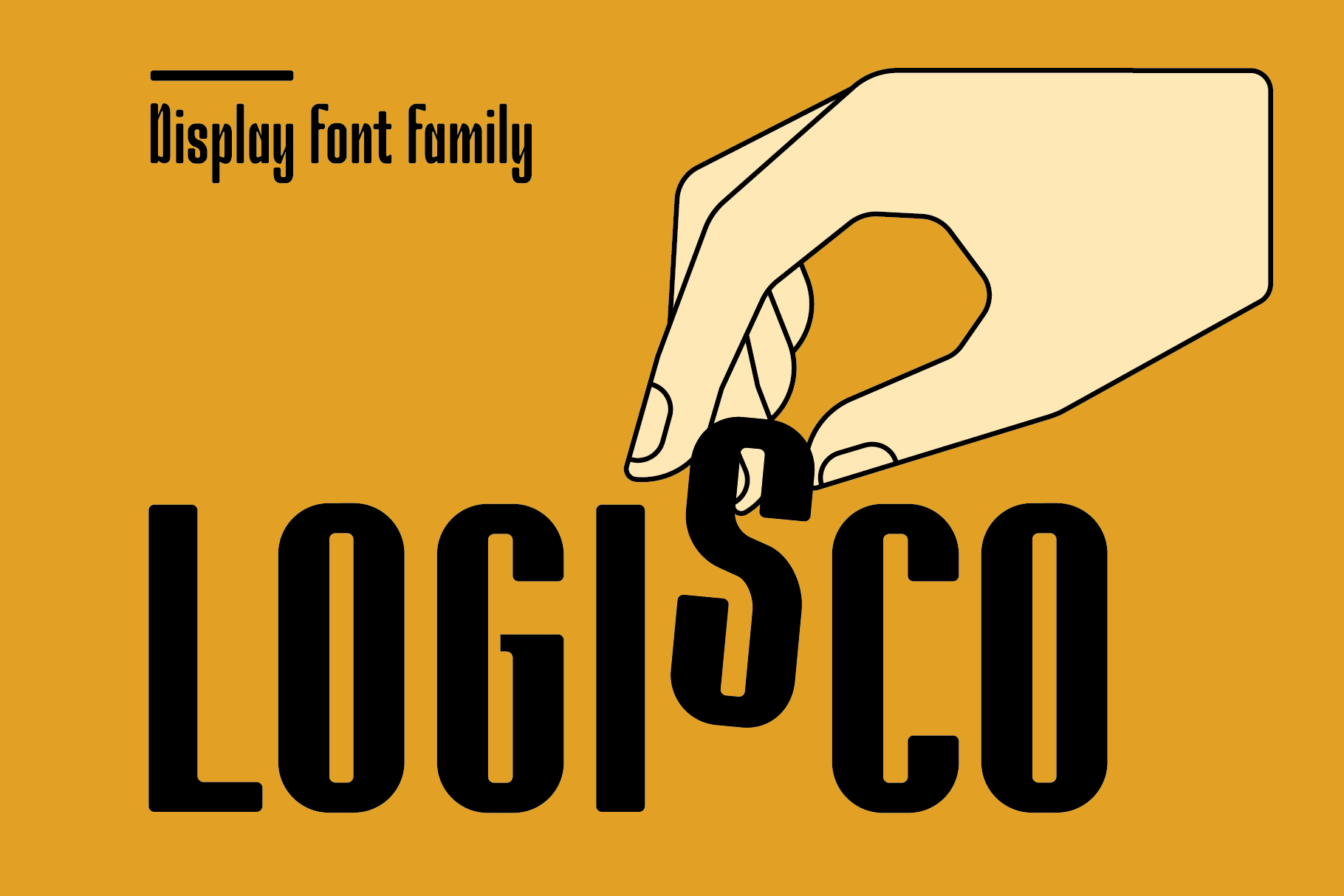
Logisco Full Font Family
Introducing Logisco - a sleek and versatile display font family that combines modern geometry with a retro-cool vibe. This six-font collection boasts soft, rounded corners that add a dash of playfulness to any project. Logisco Light, Regular, and Bold offer a range of weights to fit any typographic need, while the Stencil variations add a unique edge to your designs. Whether you're creating sleek logos or funky posters, Logisco has you covered with its stylish and versatile letterforms.